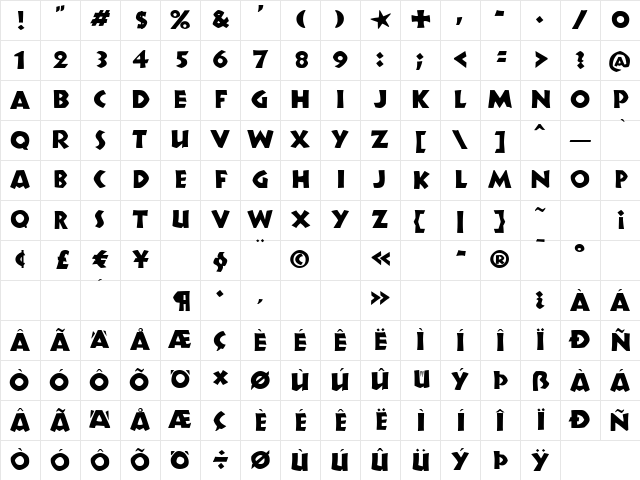
P22 Koch Nueland Regular
Foundry: P22 type foundry
Designer: Rudolf Koch, Richard Kegler
Design Context for P22 Koch Nueland
P22 Koch Nueland is a composed and adaptable typeface that performs quietly and consistently across a wide range of design contexts.